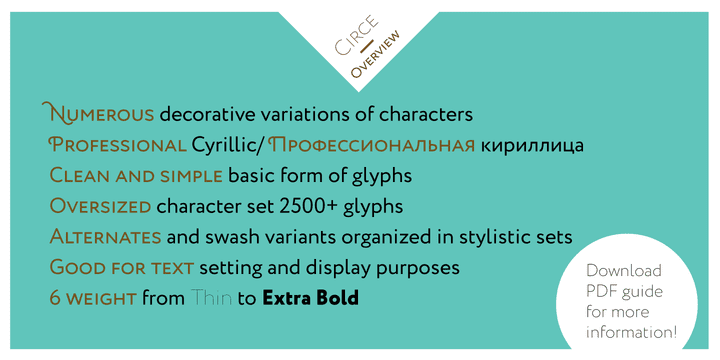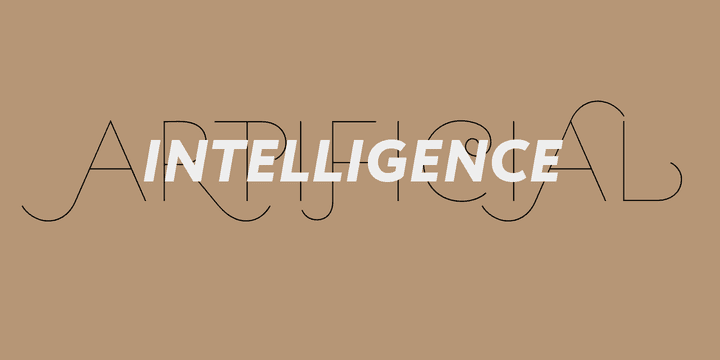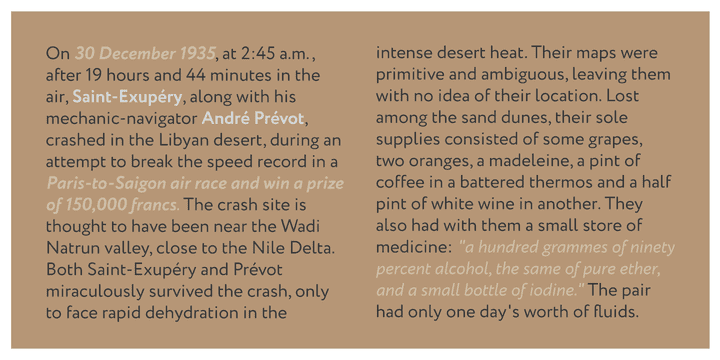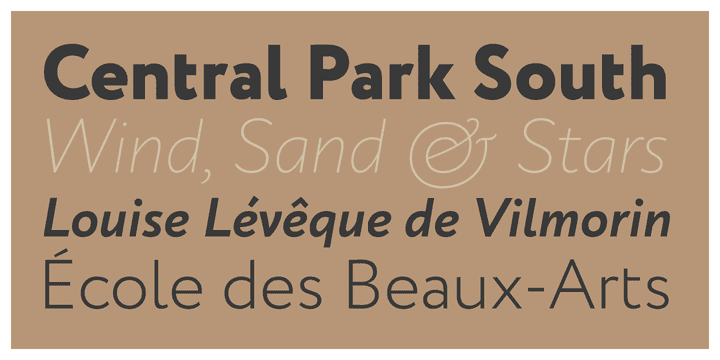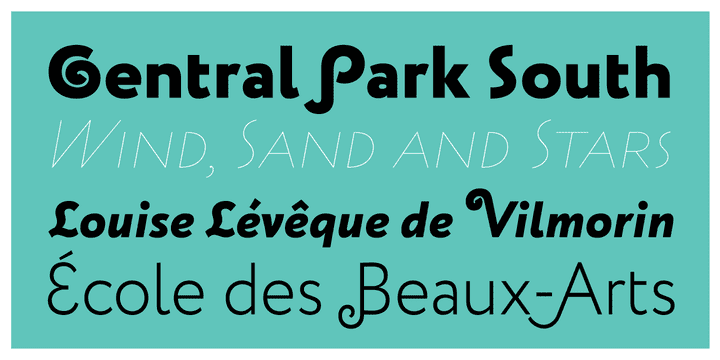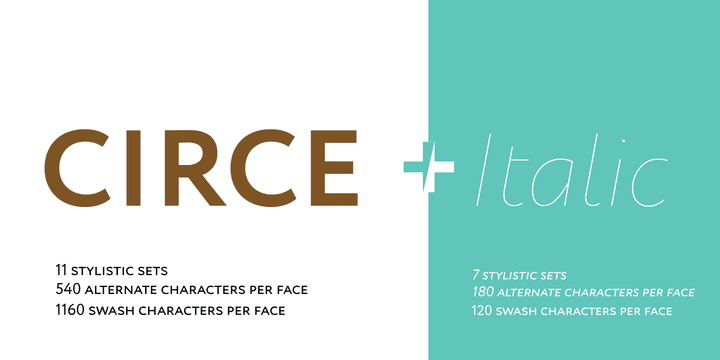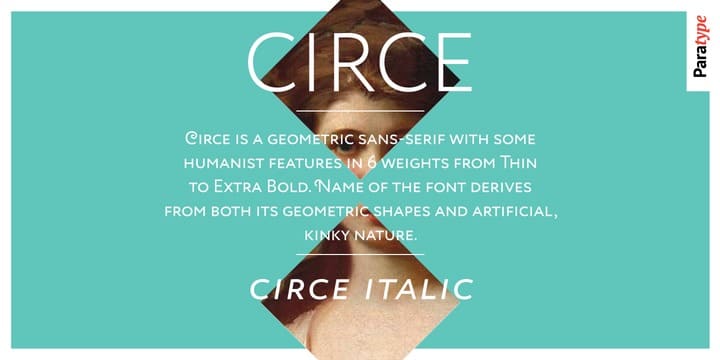
The name of the font derives from both its geometric shapes and artificial, kinky nature. While being clean and simple in its basic form, Circe can become more intricate with its numerous decorative variations of characters, tempting and challenging the designer to use more and more of them and finally -- probably -- making him look foolish like the sailors who got to Circe’s island.
Its oversized character set not only allows using Circe for almost all European languages (based on Latin and Cyrillic scripts) but also contains a lot of alternates and swash variants organized in stylistic sets which make the font look in several completely different ways. Circe is good for both text setting in small point sizes and display purposes, such as magazine headlines, posters and so on.